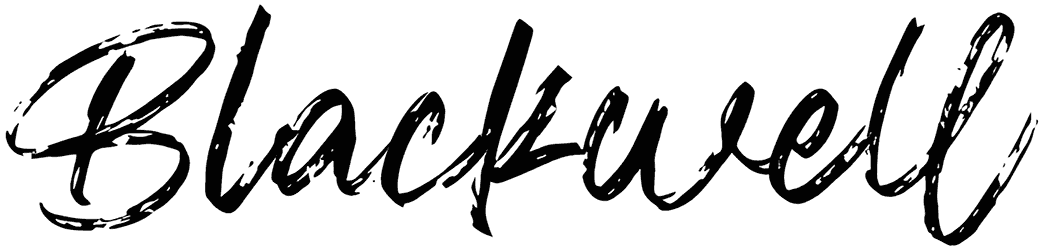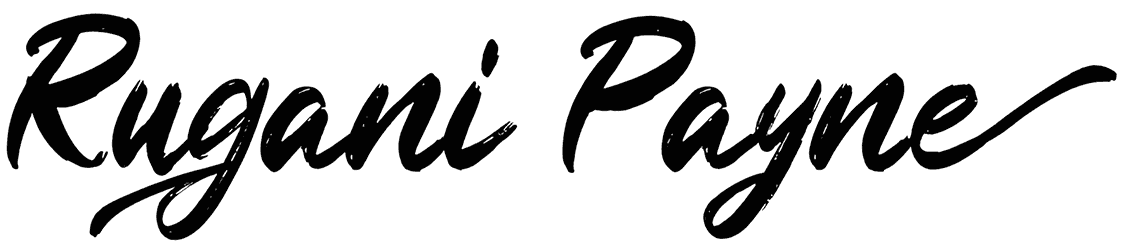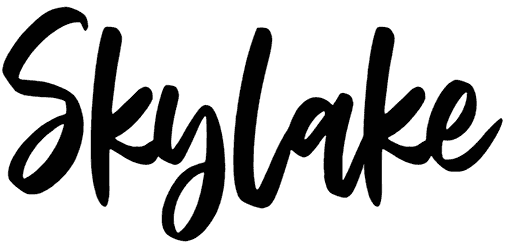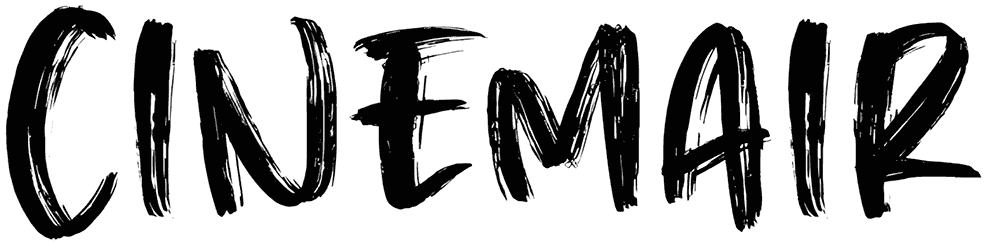
Litchis Island Font
Litchis Island font is one of the brushes and handwritten font designs offered in two different types. The combination of uppercase and lowercase letters in the poster design of the art exhibition will be extraordinary. This cursive font does not support numbers, and we suggest you use it in any campaign, travel, and forest billboards.
2020 version, refreshed and completed.